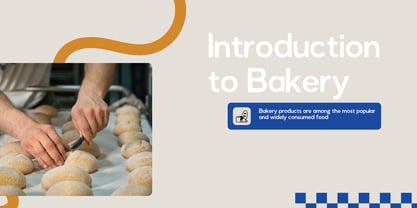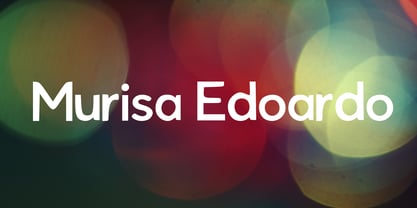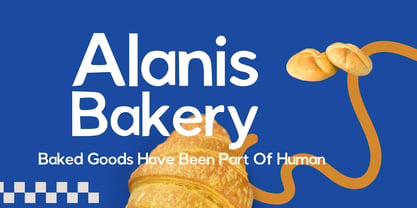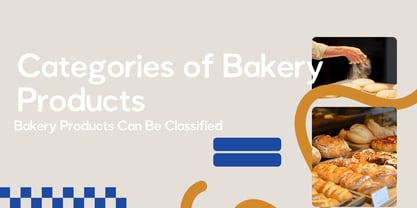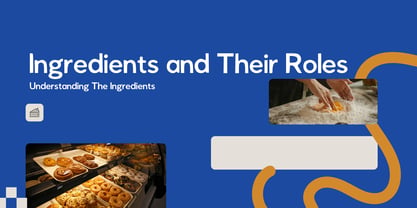
Murisa Edoardo
The Murisa Edoardo Font Family was designed by Lili Sadili and published by Murisa Studio. Murisa Edoardo contains 3 styles. More about this family
🌟 Murisa Edoardo - Modern Geometric Sans-Serif
Meet Murisa Edoardo, a sleek, versatile, and modern geometric font designed for seamless readability and effortless style. Crafted with balanced proportions and friendly curves, it brings a fresh, contemporary feel to any design project.
Whether you're crafting high-impact headlines, editorial layouts, or modern web interfaces, Murisa Edoardo delivers precision and elegance in every character.
Key Features
• 🌍 Eastern & Central European Language Support — Fully equipped with extended diacritics for Polish, Czech, Slovak, Hungarian, Romanian, Turkish, and more.
• 🔤 Complete Character Set — Includes Uppercase, Lowercase, Numbers, and Essential Punctuation.
• 🎯 Highly Versatile — Works perfectly for both large display text and small body copy.
• 📐 Clean Geometry — Crisp lines and balanced proportions for maximum legibility on screen and in print.
• Murisa Edoardo
• Full Uppercase & Lowercase Alphabet
• Standard Numbers & Punctuation Marks
• Extensive Multilingual & Diacritic Characters